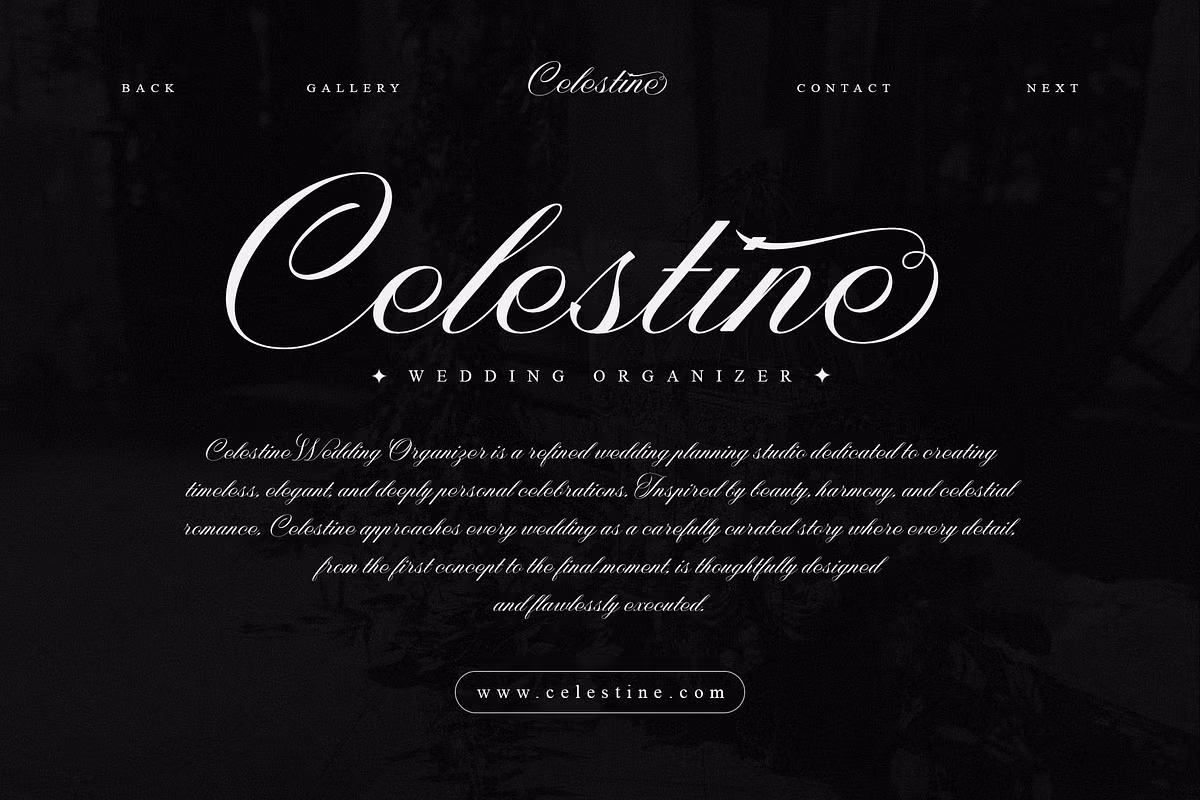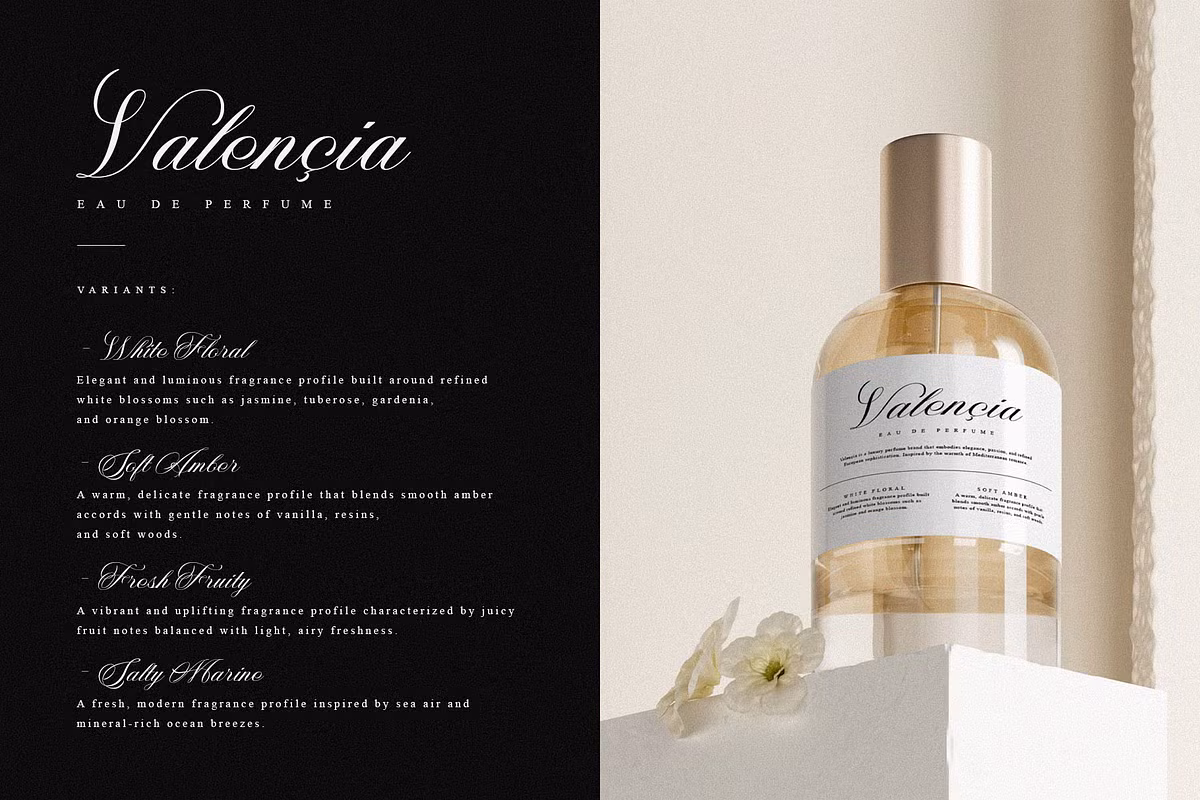
Nightshade: Luxurious Calligraphy Script Font for Elegant Designs
Nightshade is a beautiful script font with smooth lines and curves. It’s inspired by traditional handwritten letters and classic calligraphy, giving it a romantic and luxurious feel. The design is simple, yet it still manages to convey a lot of emotion, making it perfect for all sorts of creative projects – like branding, invitations, and social media graphics. Whether you’re looking to add a touch of elegance or just want to make your work stand out, Nightshade is a great choice. Its classic look and feel make it versatile, so you can use it for many different things. Overall, Nightshade is a lovely font that can help you create something truly special.
Design Style of Nightshade
Nightshade has a really smooth and elegant look to it. The way the letters flow into each other, with their curved lines and soft turns, makes for a nice balance between looking fancy and being easy to read. It’s a bit like old-fashioned calligraphy, but with a modern spin that lets it work well in today’s designs. This mix of old and new styles gives Nightshade a unique feel that’s both classic and fresh. The font’s fluidity is especially noticeable in its strokes, which seem to dance across the page.
Overall, Nightshade is a great choice for anyone looking for a font that’s both beautiful and versatile. Nightshade has a really nice way of connecting letters, it’s like handwriting. This makes your designs feel more personal and welcoming, it draws people in. The extra flourishes on some letters, at the start and end, add a bit of elegance, making Nightshade great for fancy brands and invitations.
Key Features of Nightshade
- Elegant Letterforms: Crafted to embody grace and beauty, each character in the Nightshade font is designed with meticulous attention to detail.
- Versatile Style: While it maintains a luxurious appearance, Nightshade is also versatile enough to be used in various design contexts.
- Expressive Swashes: The decorative elements add personality and charm, perfect for creating visually striking designs.
Character Sets and Language Support
Nightshade has a big set of characters, which makes it useful for many different design projects. It includes all the regular Latin letters, plus lots of punctuation marks, numbers, and fractions. This means designers can create designs that look put together and professional without having to use multiple fonts. They can just stick with Nightshade and still have all the tools they need to make their design look great.
With Nightshade, designers have everything they need to create cohesive and polished compositions, from basic letters and numbers to more complex punctuation marks and fractions. This versatility makes Nightshade a great choice for designers who want to create high-quality designs without a lot of hassle. What’s more, Nightshade is really useful for projects that need to be in different languages, because it supports multiple languages.
Alternates and Ligatures
Nightshade gives you more ways to make your designs look great with extras like alternates and ligatures. The alternates let you pick different styles for certain letters, so you can really customize the way your text looks. Ligatures are special combinations of letters that help them flow together better, which makes your text look nicer and easier to read.
Use Cases for Nightshade
Nightshade is really flexible, which means it can be used in many different ways. Let’s take a look at some of the main ways it can be used, and you’ll see just how adaptable it is.
- Branding Projects: Nightshade can serve as the centerpiece for a logo, conveying a sense of luxury and elegance that aligns with high-end brands.
- Invitations: Whether for weddings, formal events, or corporate gatherings, this font adds a touch of sophistication to any invitation design.
- Packaging Design: Nightshade’s unique style can elevate product packaging, making it stand out on shelves and attracting consumers.
- Editorial Accents: Use Nightshade for headings or pull quotes in magazines and online articles to add visual interest and elegance.
- Social Media Graphics: Capture attention on social platforms with stunning graphics that feature Nightshade’s expressive and stylish letterforms.
- Website Headers: Integrate Nightshade into your website design to enhance the aesthetic appeal of your headers and calls to action.
Pairing Suggestions for Nightshade
When designing, pairing fonts effectively can enhance the overall aesthetic and readability of your work. Here are some pairing suggestions for Nightshade:
- Sans Serif Fonts: Pair Nightshade with clean sans serif fonts like Open Sans or Lato to create a balanced contrast.
- Serif Fonts: For a more traditional look, consider pairing Nightshade with a classic serif font such as Merriweather or Playfair Display.
- Geometric Fonts: For a modern look, consider using geometric fonts like Montserrat, which have a sleek and clean appearance.
Nightshade is not just a font, it’s a whole design experience. It’s elegant, luxurious, and can be used in many different ways. The flowing lines and curves make it special and give it a lot of personality. Whether you’re working on a brand, an invitation, a website, or a package, Nightshade can add a touch of sophistication and charm.
It’s perfect for creatives who want a script font that feels classic but also unique. With Nightshade, you can make your designs stand out and look amazing. It’s a great way to add some elegance to your work and make it shine.